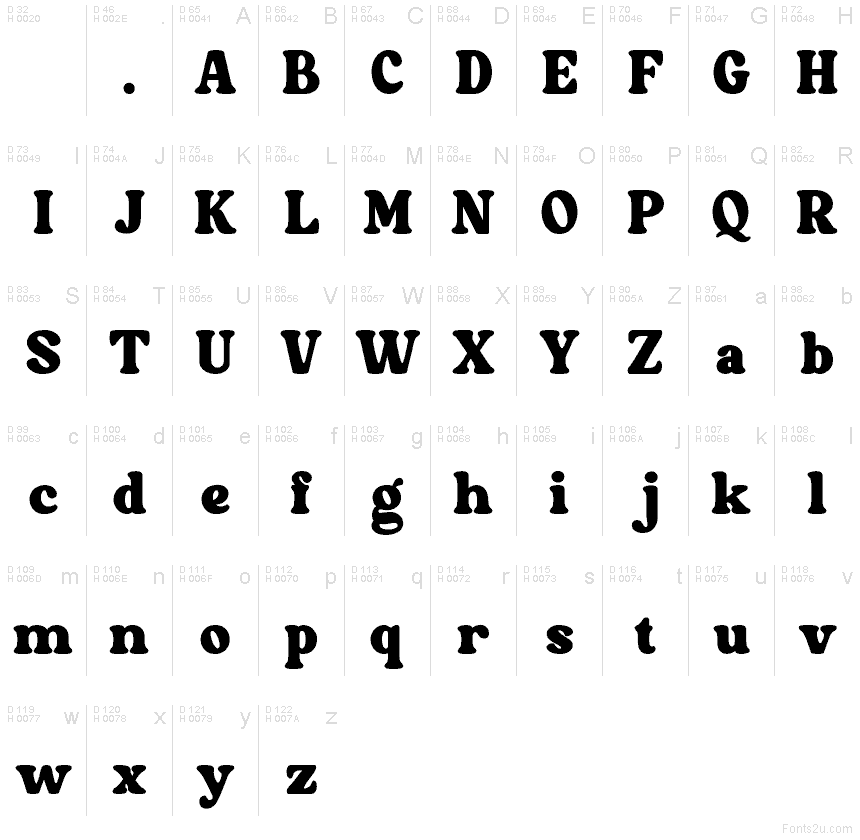
Sundori Regular
Sundori font is a bold display typeface by Achmad Yani that captures the retro essence with prominent curves and a rounded design. This font’s soft aesthetic and casual appeal create an approachable tone, making it perfect for eye-catching projects.
Use Sundori for logos, headlines, posters, branding designs, flyers, websites, social media posts, packaging applications, print designs like magazines and newspapers—virtually any other project that requires attention.